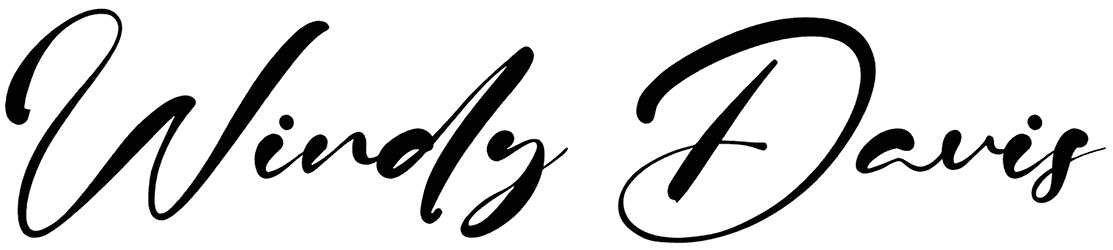
Windy Davis Font
Welcome to Windy Davis, a gorgeous handwritten font with an enchanting appearance. It gives off a combination of love, modernity, and sweetness while maintaining a natural touch at the same time.
This wedding font might be a little hard to read but instead, but it leaves a beautiful, charming finish that will allow you to make your work look much better than every other design. You can utilize it for wedding invitations, quotes, photography, advertisements, and branding materials.